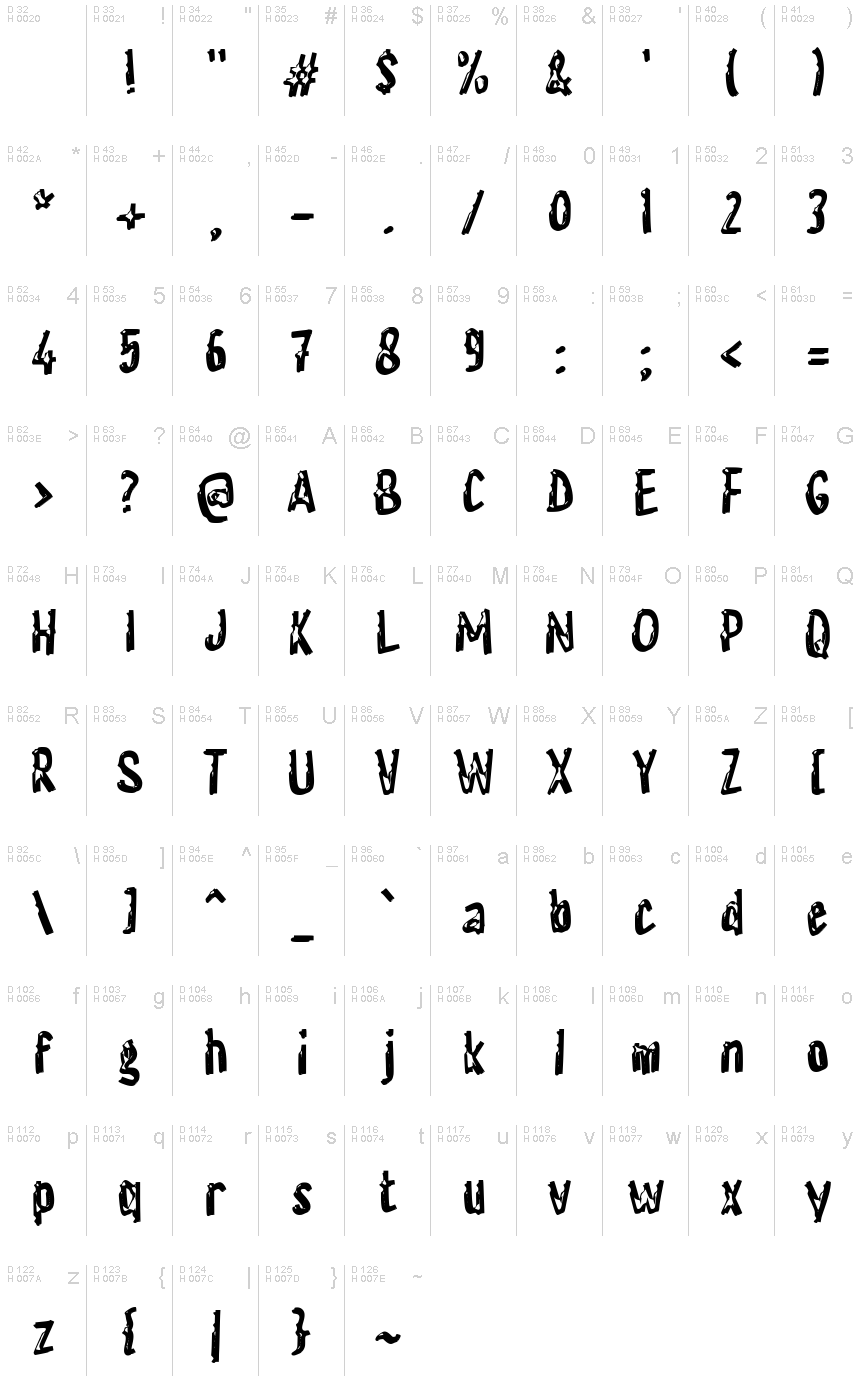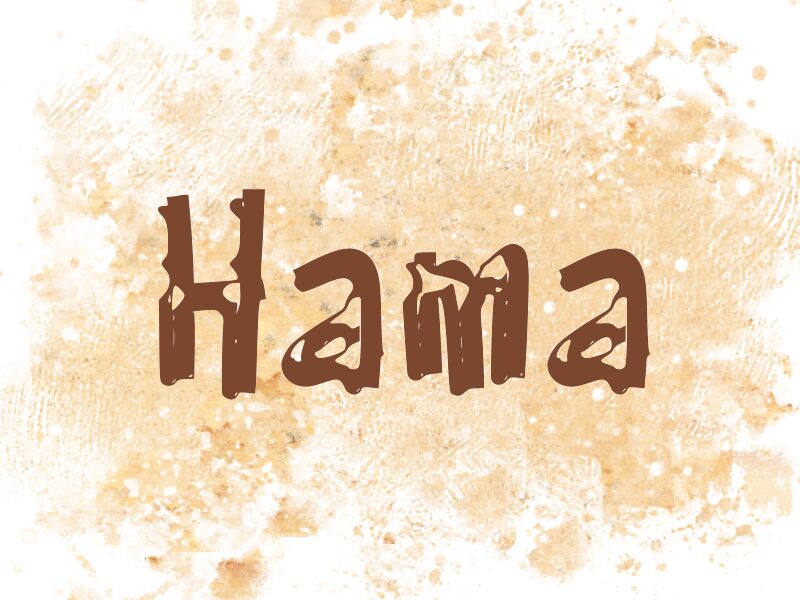
Hama
Hama font by Wep is a free display font with condensed characters, offering eroded letter endings that give off vintage vibes. The playful design is certainly inspired by the 1970s, without losing its modern appeal. This dynamic display typeface can be used in both print and digital designs looking to convey a standing mood.